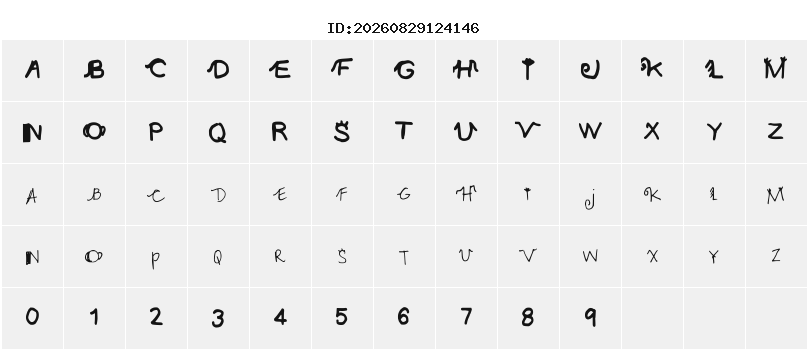
• Font Name: Third
• Full Font Name: Third Regular
About Third.ttf
Third.ttf is a modern, elegant sans-serif font designed for ultimate readability and visual harmony. Perfect for branding, headlines, web design, and print materials.